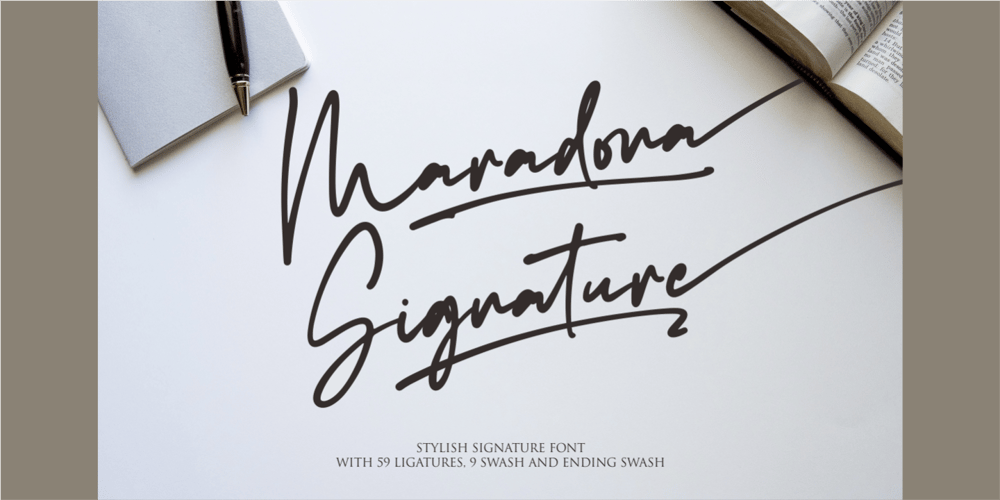
Maradona Signature Font Family was designed by Siti Nurjanah and published by NJ Studio. Maradona Signature contains 1 styles and family package options. Maradona Signature a stylish signature font is a font with 59 ligatures,9 swash and ending swash. It features signature characters that will take your projects to the next level!This font is PUA code which means you can easily access all the glyphs and swashes that are full of signature! It also features many special features including glyphs and alternate ligatures. font designs that are made for various vector designs, printing such as digital wedding blogs, online shops, social media, while printing can be used in the field of product clothing, accessories, bags, pins, logos, business cards, watermarks and many others …so it can make your product look cute and attractive, and also Multilingual support!!!Happy design …